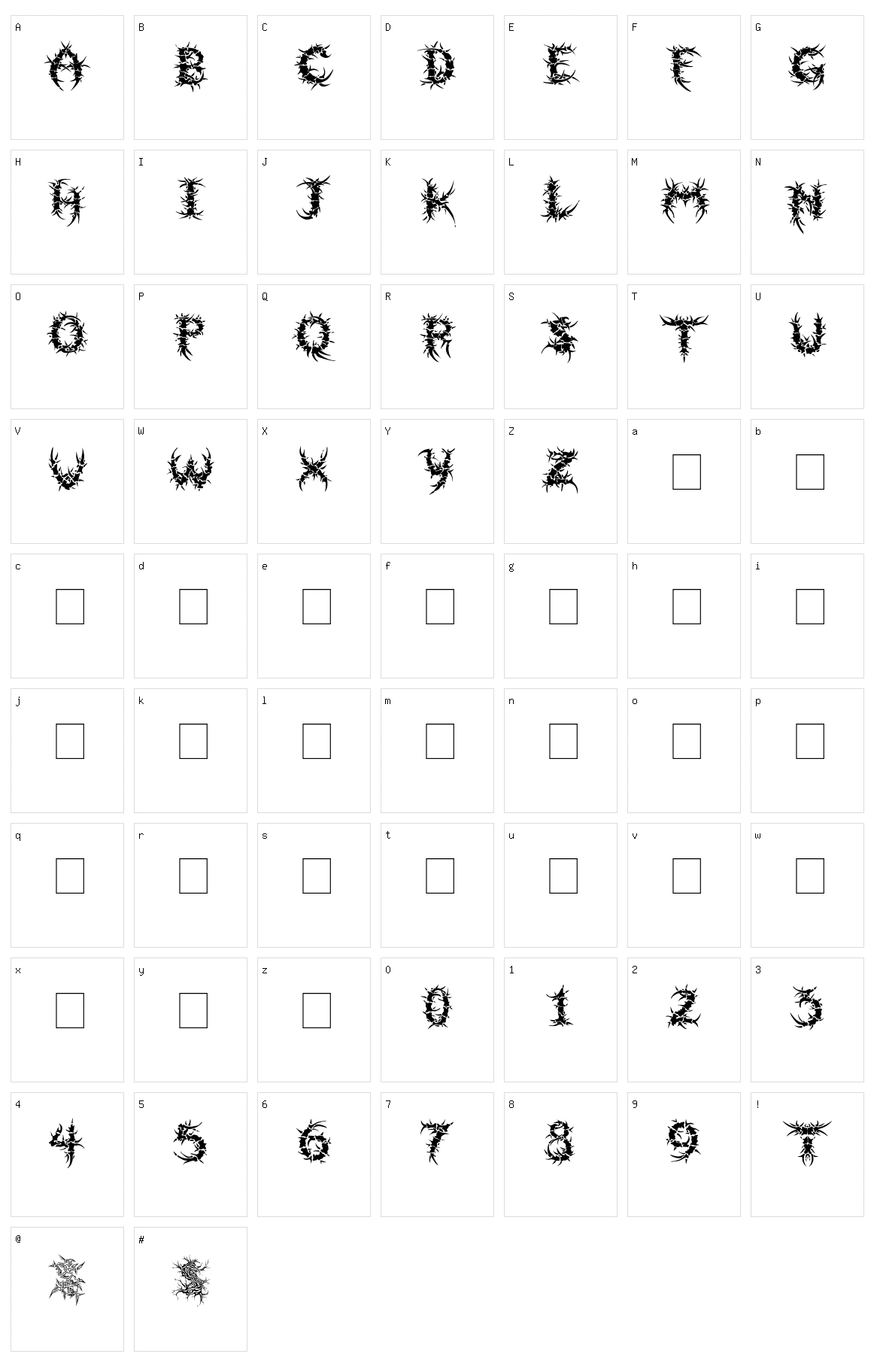
Sepulcra
Designed by: Ovalum
About the Font :
The Sepulcra font was inspired by the "S" logo of the rock group Sepultura. It all started when when I decided to do a version of the letter "A" for my own personal use but some friends wanted to see versions of other letters and in the end I did the entire alphabet.
In the letters one can see various differences and some are more complex than others. This is because the letters were initially created independently and not as part of a body of text.
The font includes two additional characters. I designed these prototypes which will be included in later versions of the font. You can see that they are typographical interpretations of Sepultura albums.
Since I have little time to develop the entire typeface family, I leave you with these two variations of the letter "S" and with some luck in the near future I will be able to offer the complete alphabet of both styles.